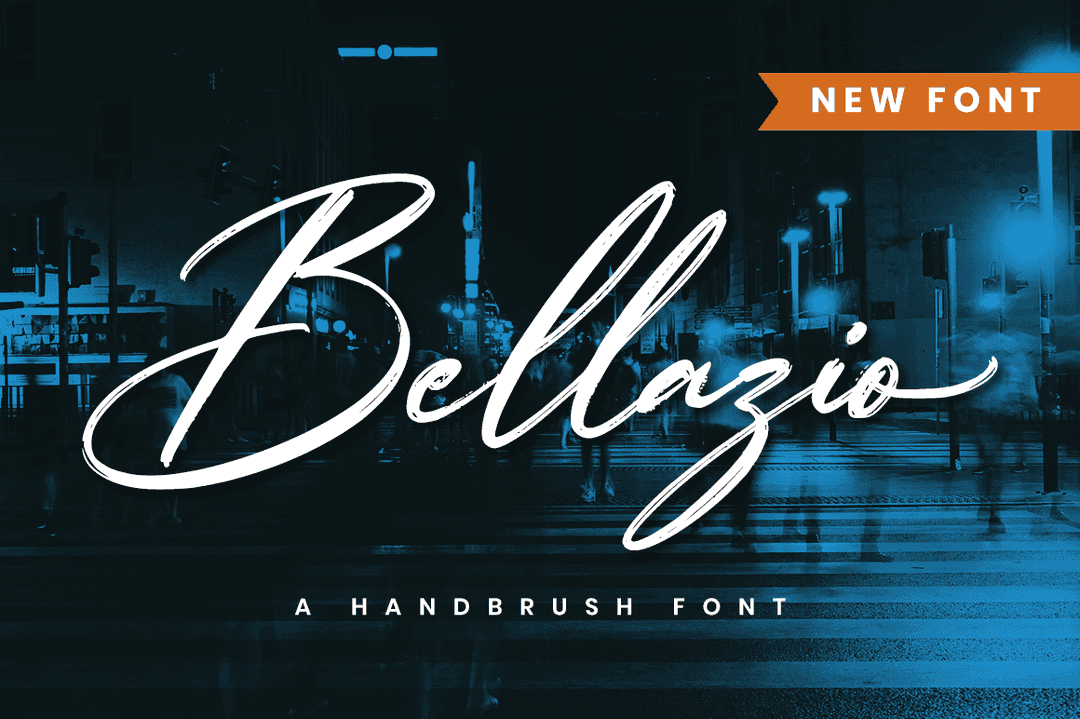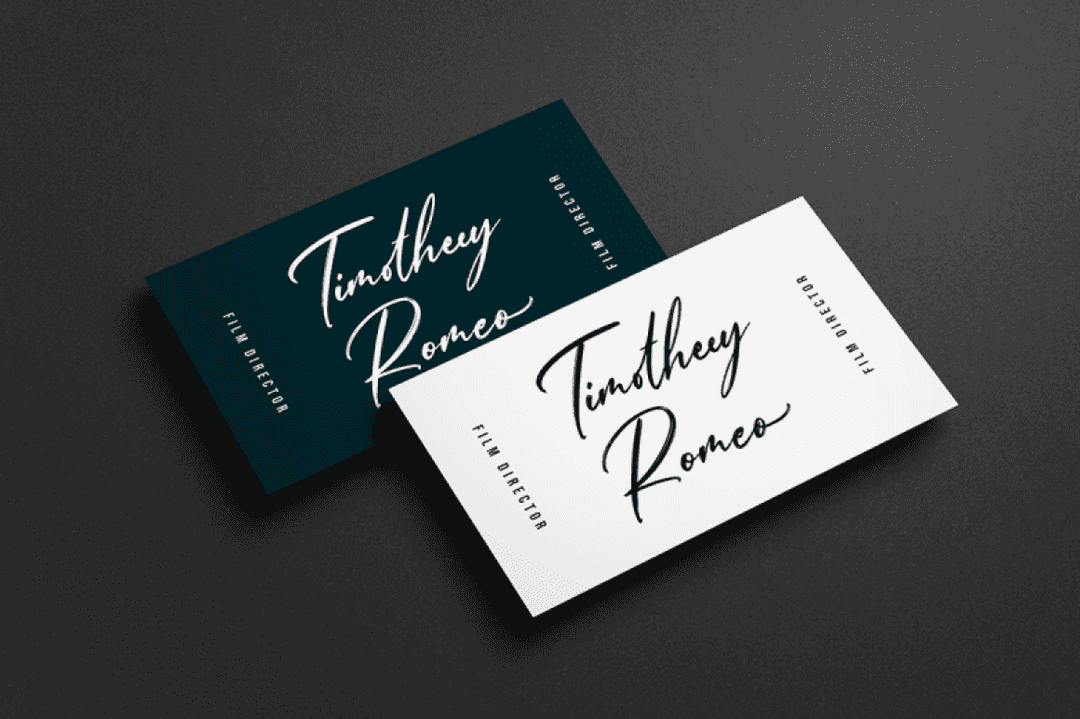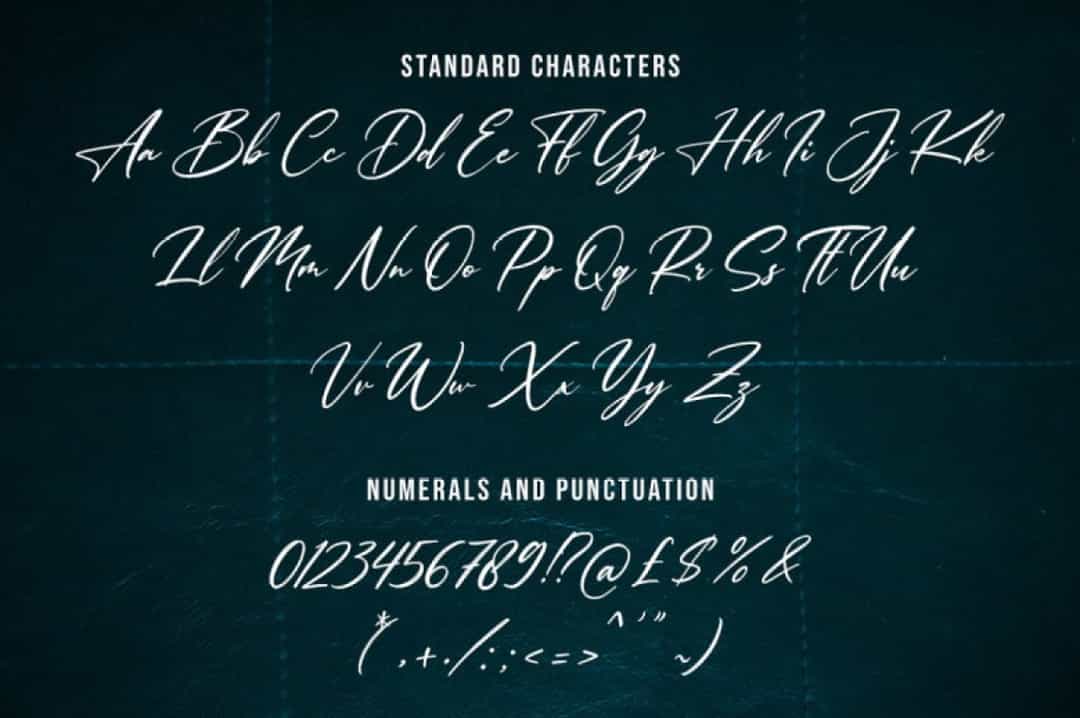
Bellazio is an innovative contemporary brush script typeface that is highly adaptable for many uses, from packaging design, branding or invitation label creation, t-shirt posters or logo creation.